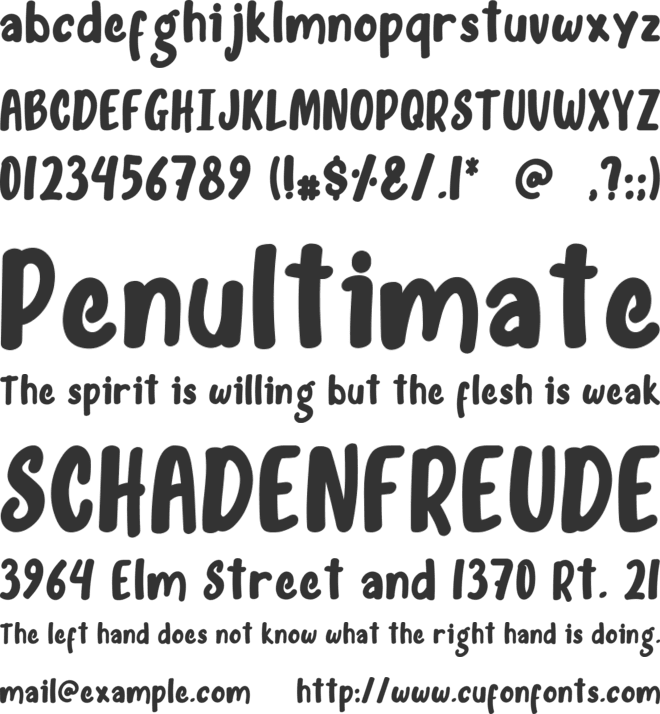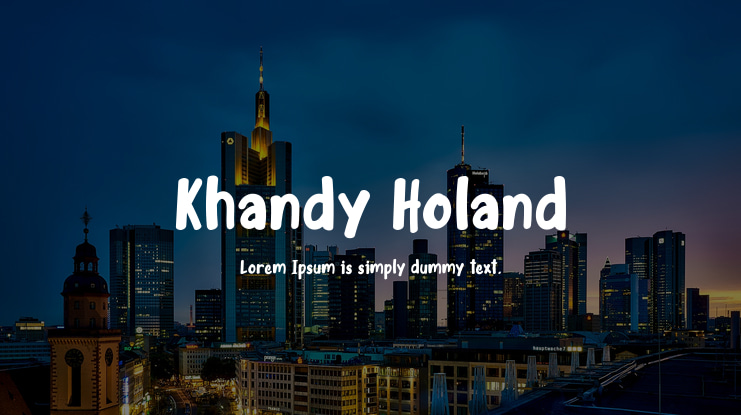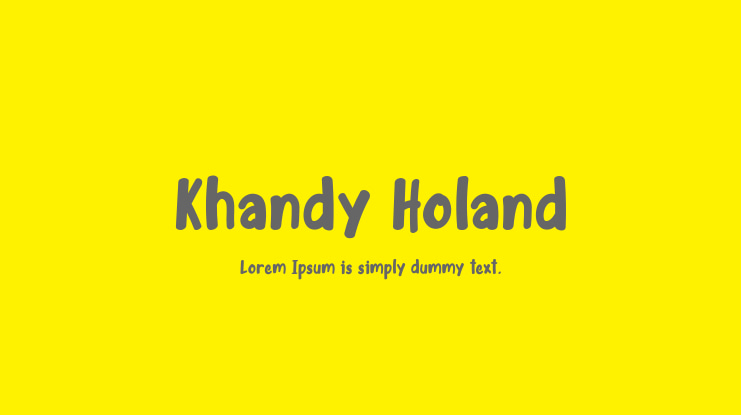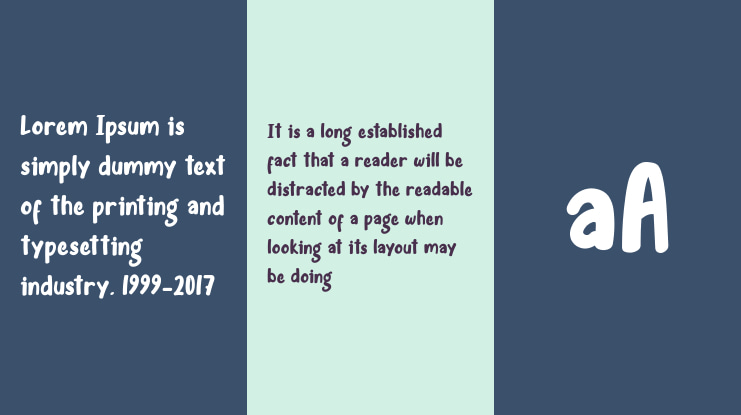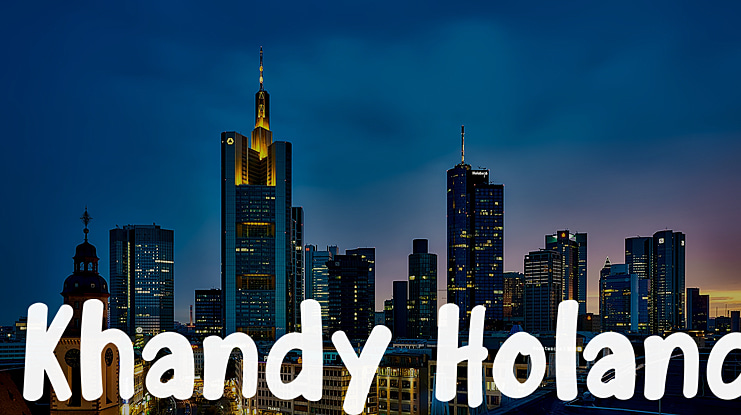
Khandy Holand Font
Meet our newest product, we call this product Khandy Holand font.
Khandy Holand font are cute typeface font
Whit a uniqe touch and assertive
Khandy Holand font is very nice to use on:
fashion magazine,logos, ,and photography,landing page,fliyer,
- mutilngual support
- alternate
- ligature